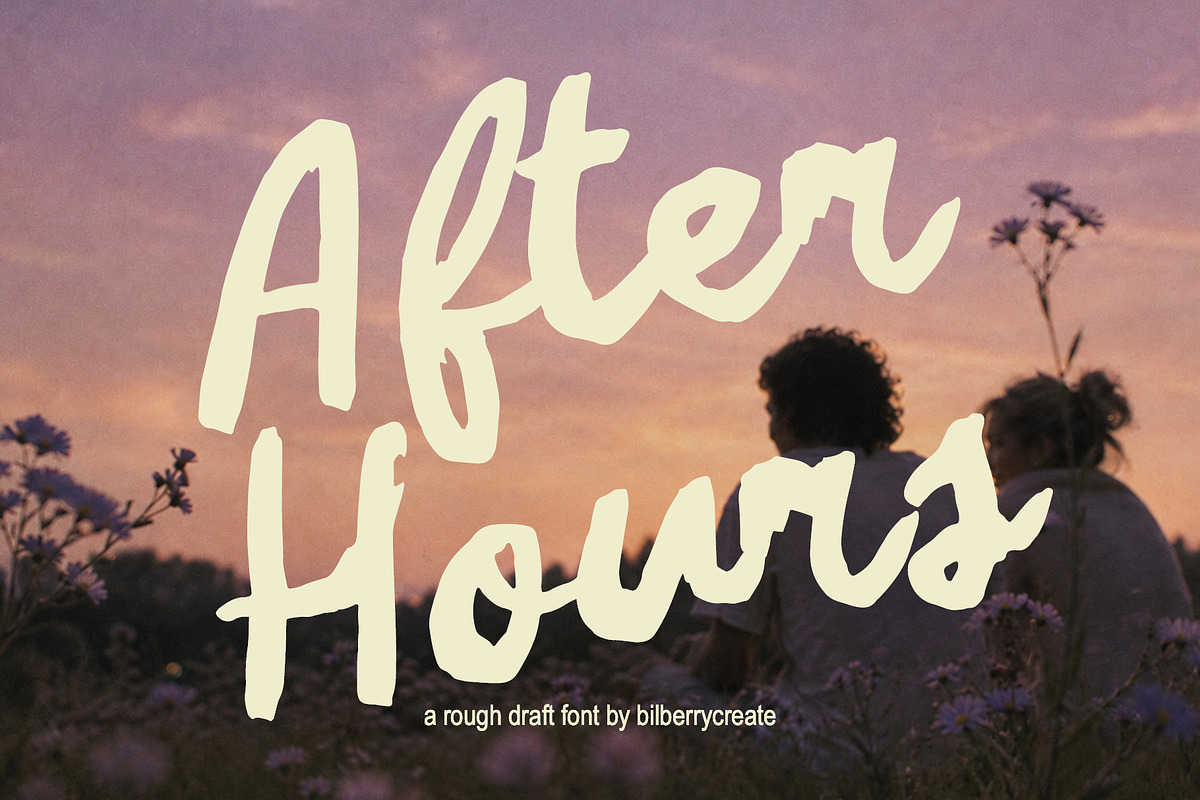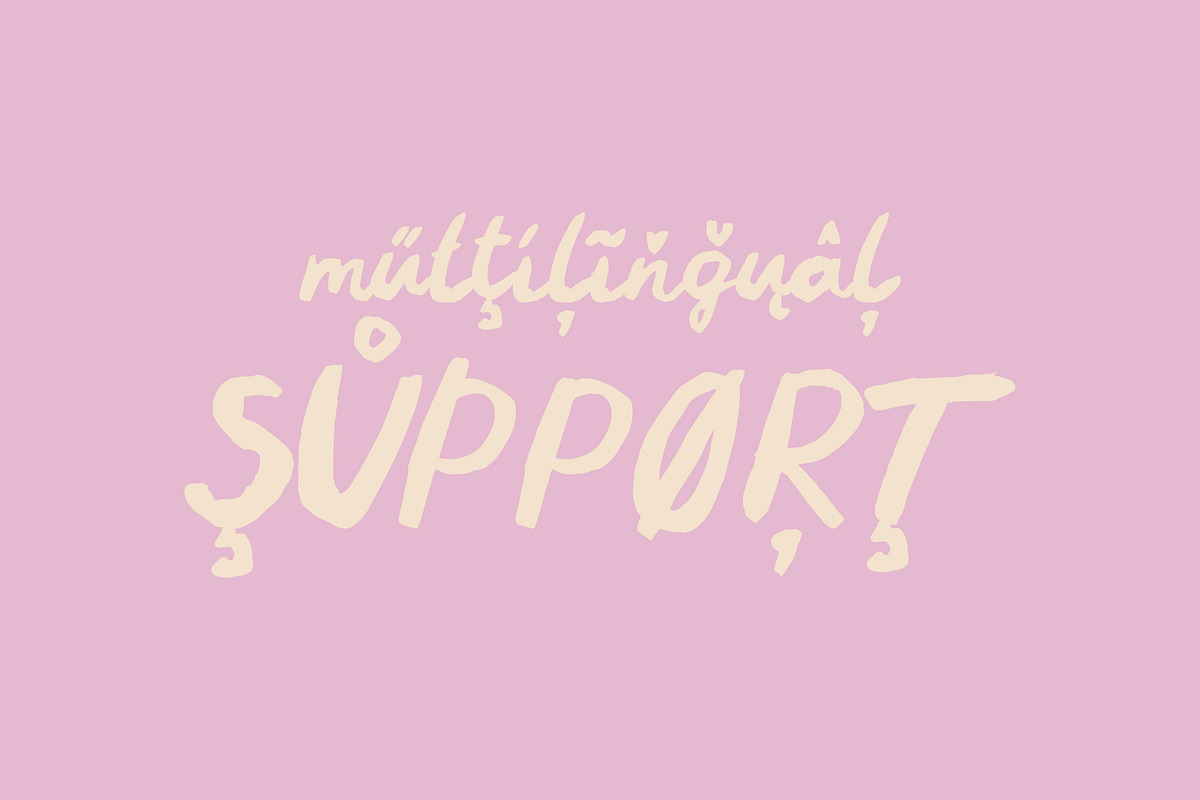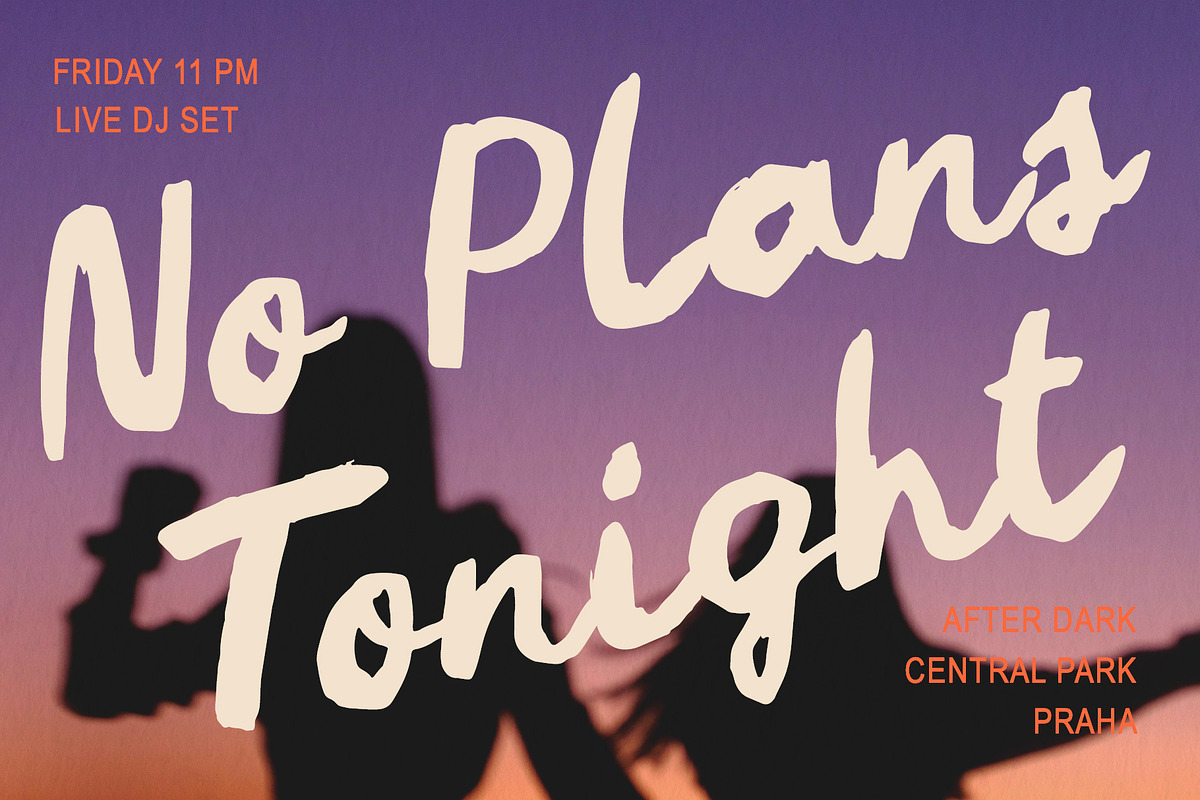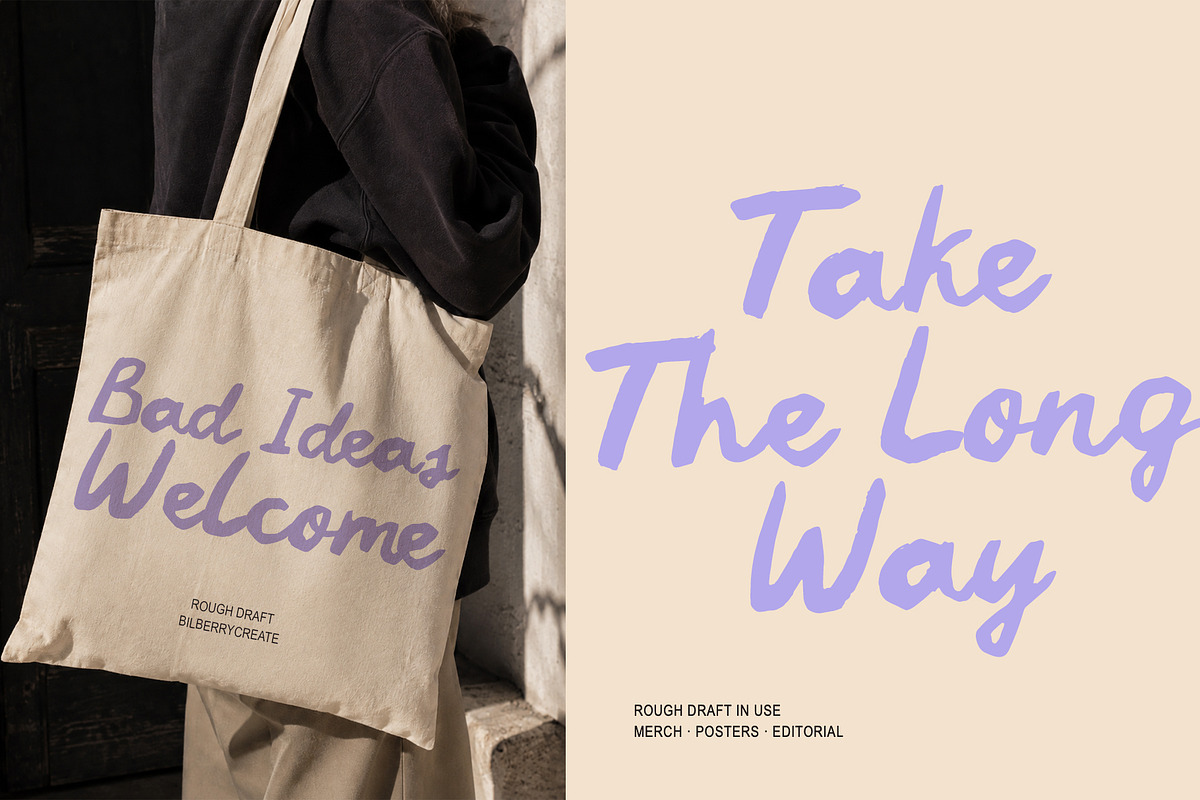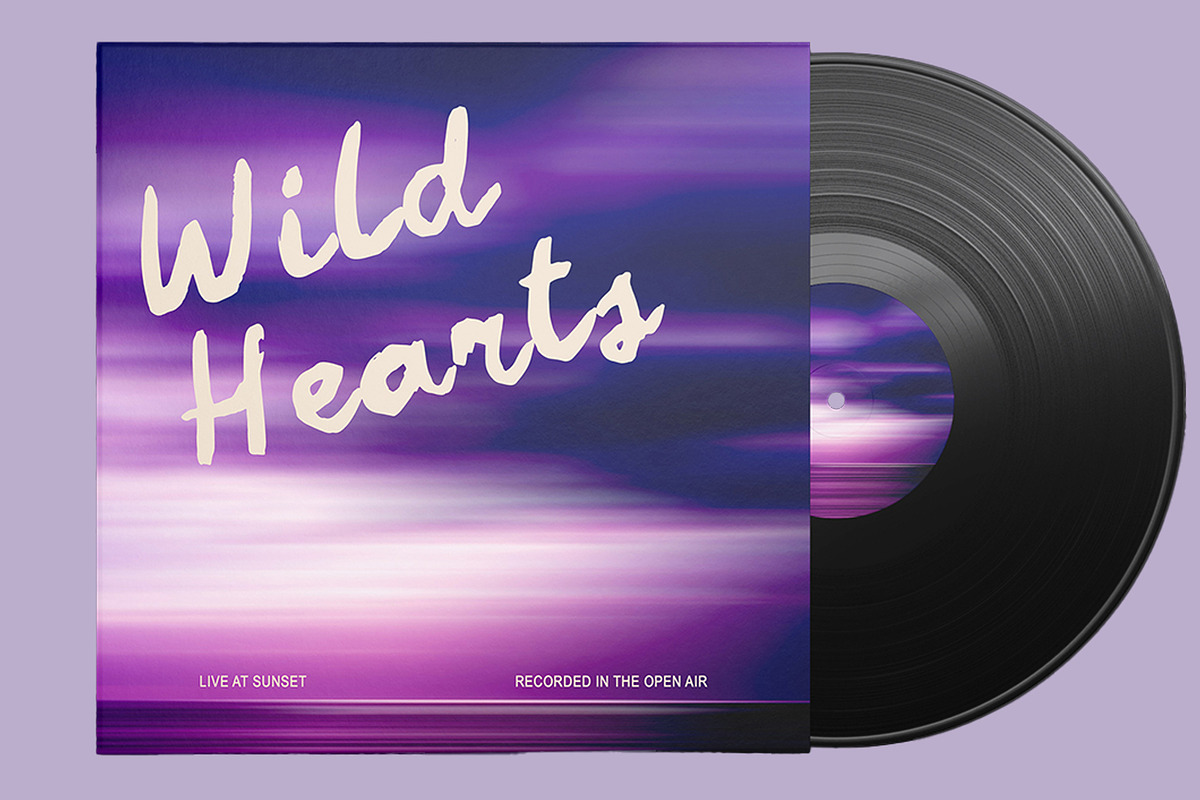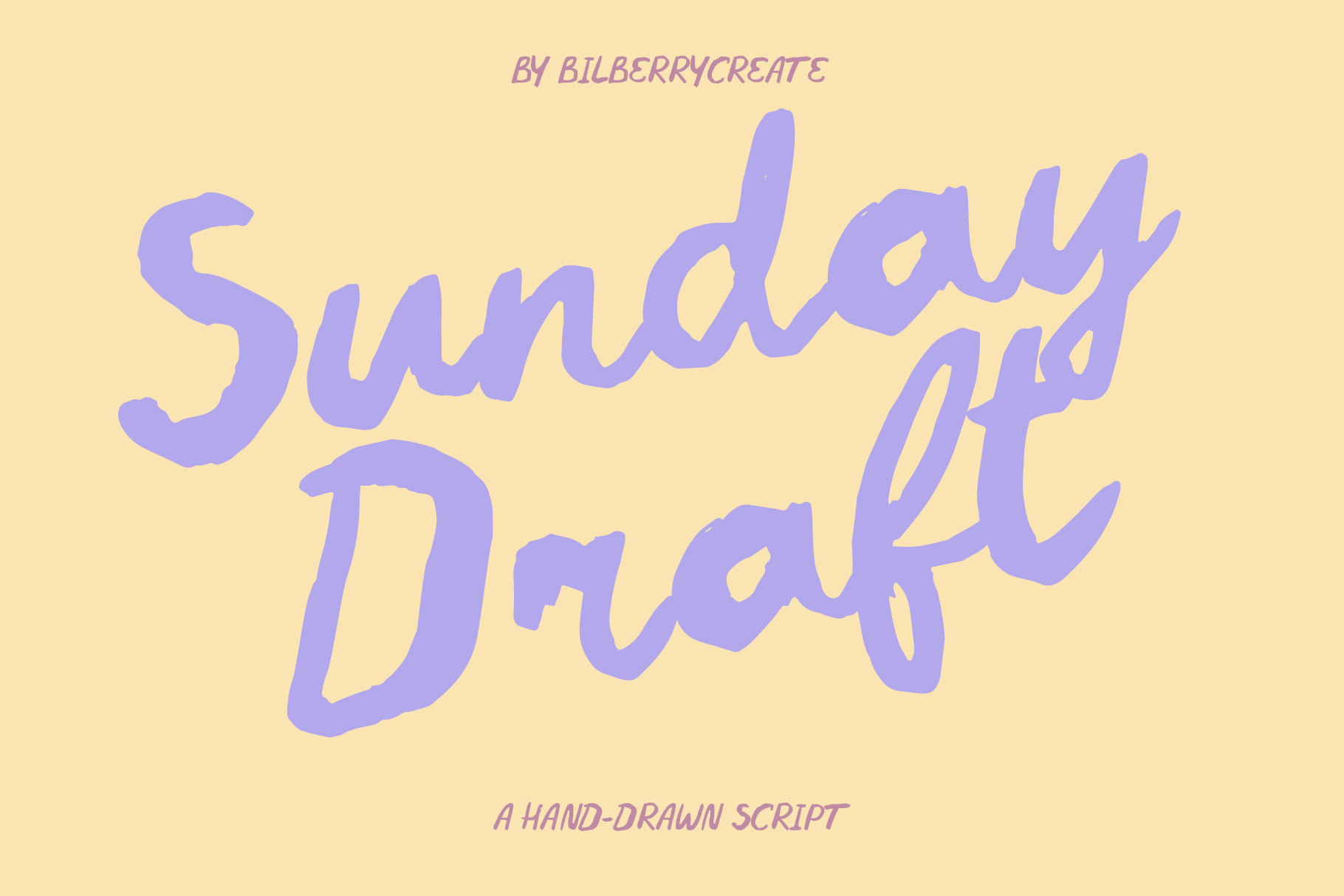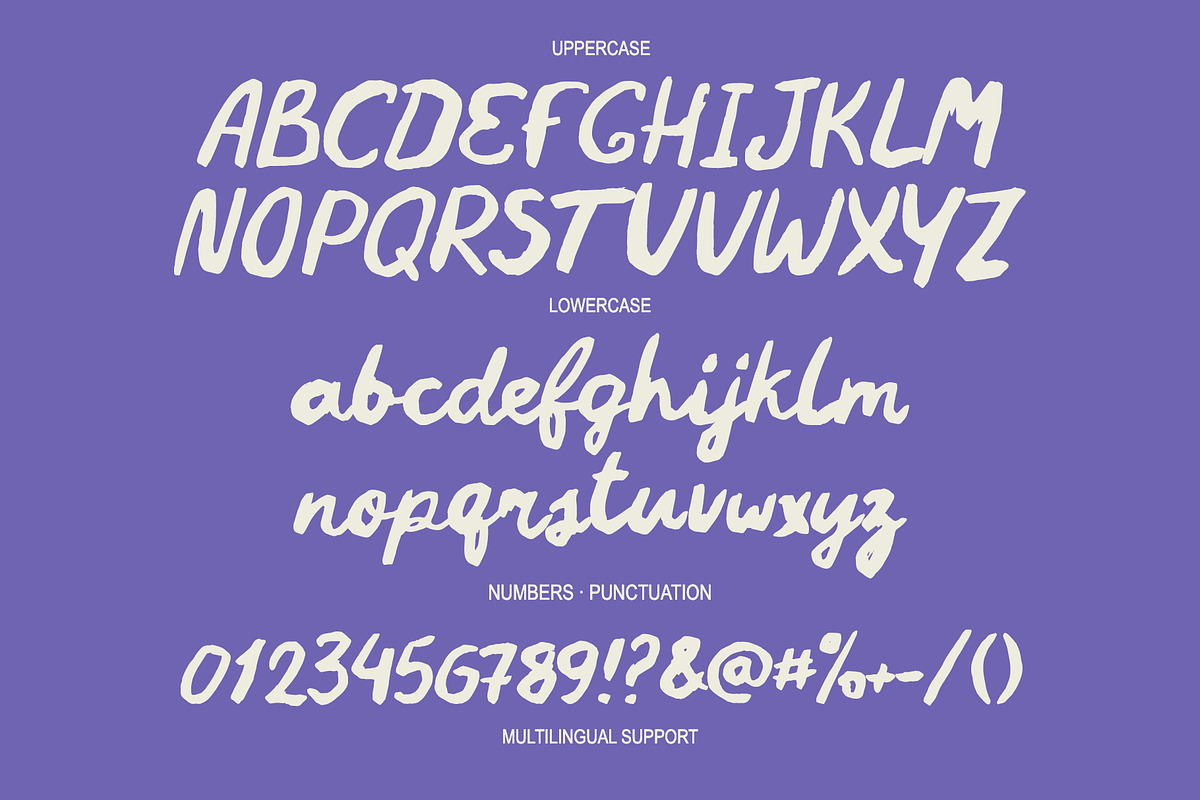
Sunday Draft - Hand Drawn Font
Sunday Draft is a relaxed hand-drawn script with loose shapes, natural imperfections and an easy, spontaneous feel.
Designed to look personal without feeling overly polished, Sunday Draft works especially well for posters, branding, packaging, editorial layouts, social media, merchandise, album artwork and lifestyle projects.
The font includes uppercase and lowercase characters, numbers, punctuation and multilingual support.
Use it big for expressive headlines, or mix it with a clean sans serif for a more editorial look.